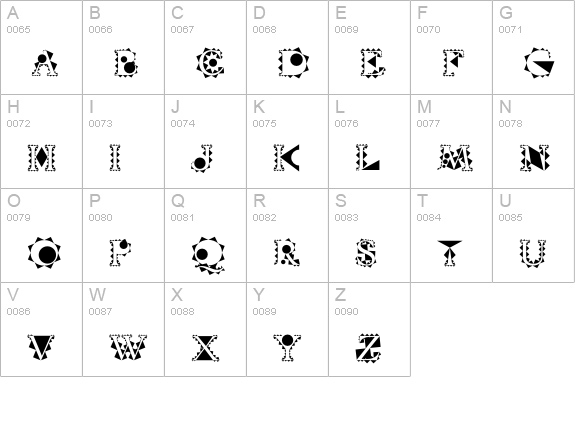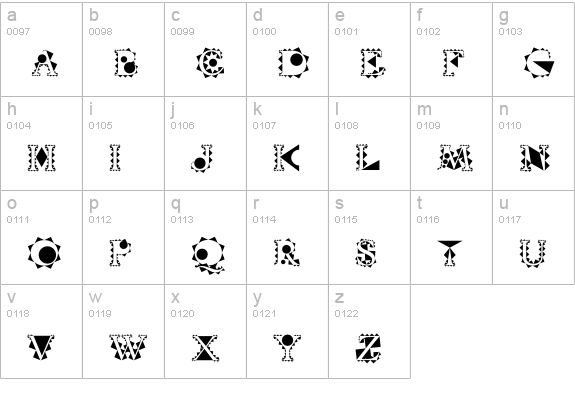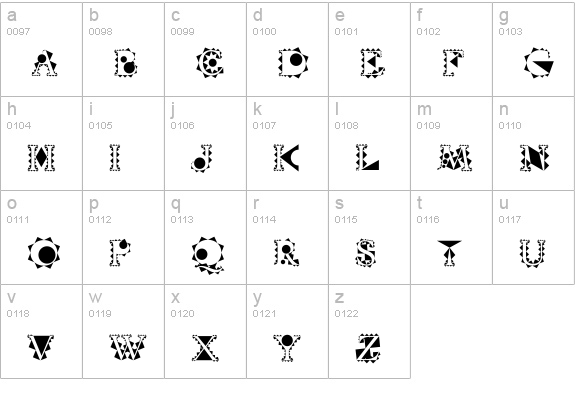
CrystalBalzac Font Details
Introducing CrystalBalzac font, a stunning display typeface that exudes elegance and sophistication. With its intricate details and unique design elements, CrystalBalzac is sure to make a statement in any project. The font features a perfect balance of modernity and classic charm, making it versatile for a wide range of design applications. Best of all, CrystalBalzac is available for free download at FontsMarket.com, making it accessible to all designers looking to add a touch of luxury to their creations. Whether you're working on branding, packaging, invitations, or any other creative project, CrystalBalzac is the perfect choice to elevate your design and captivate your audience. Download this exquisite font today and unleash your creativity with CrystalBalzac.